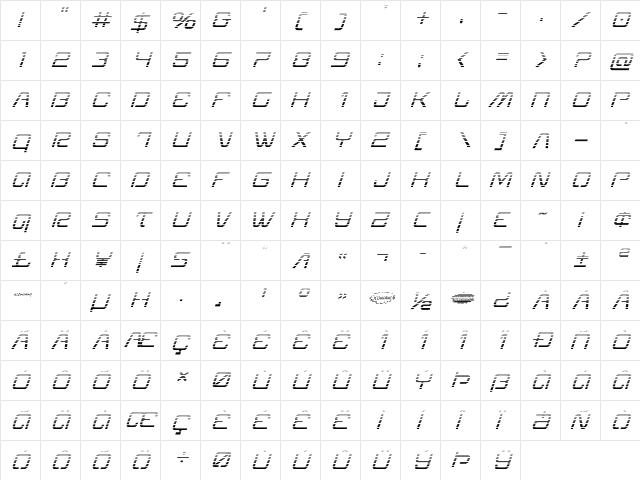
Miracle Mercury Gradient Italic Italic
Design Context for Miracle Mercury Gradient Italic Typeface
Miracle Mercury Gradient Italic is a composed and adaptable typeface that performs quietly and consistently across a wide range of design contexts. The dynamic lean of this cut emphasises speed and emphasis in any layout.
Pro Tip: Use Miracle Mercury Gradient Italic for emphasis, pull quotes, and subheadings where its slanted energy can add rhythm to the layout.